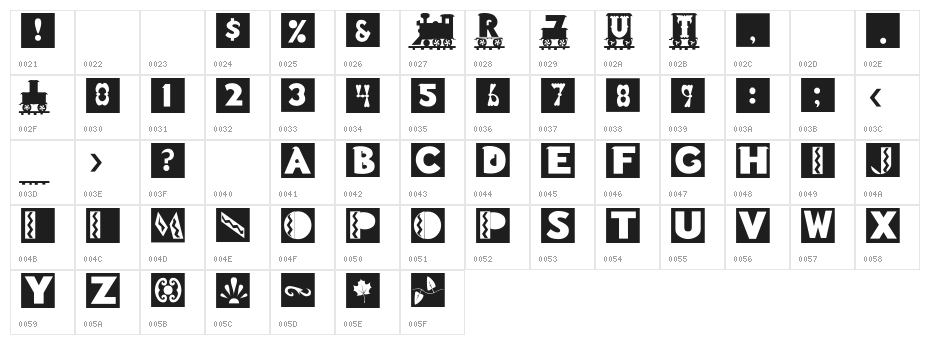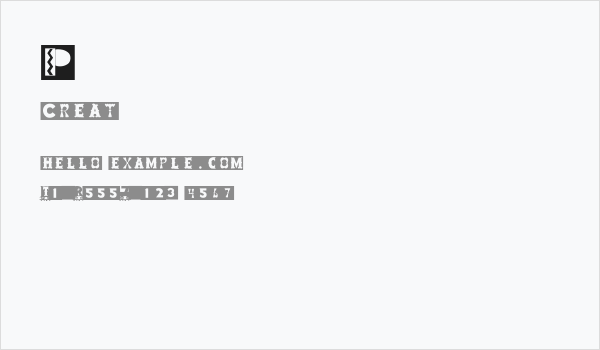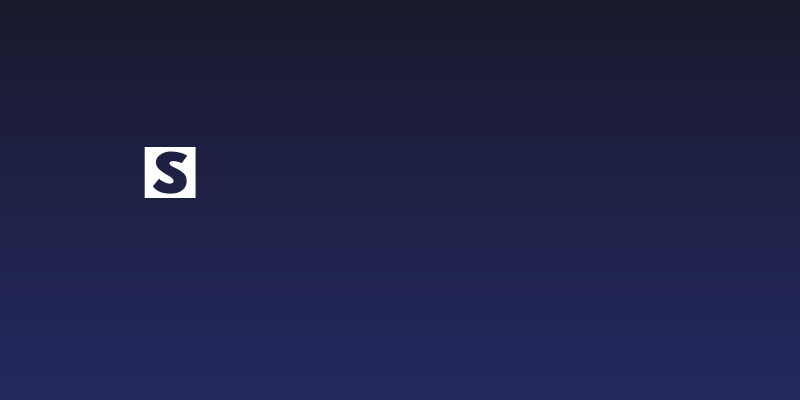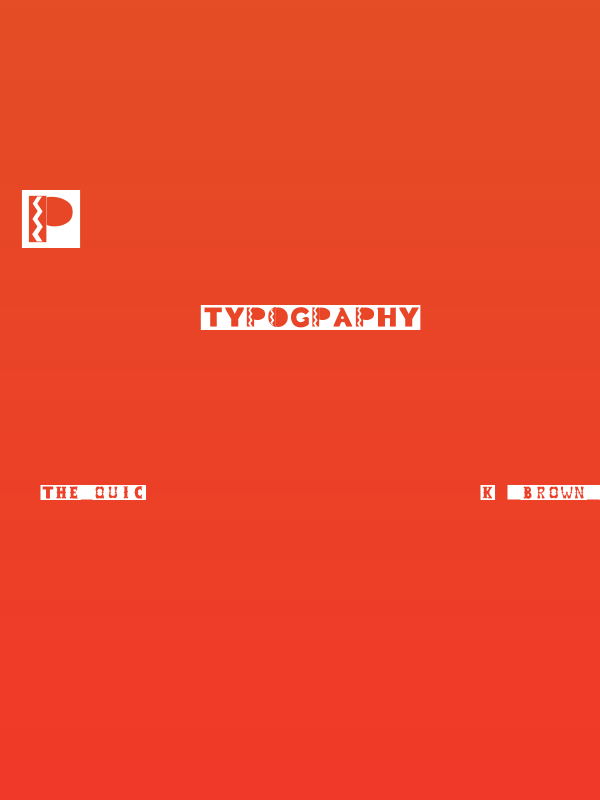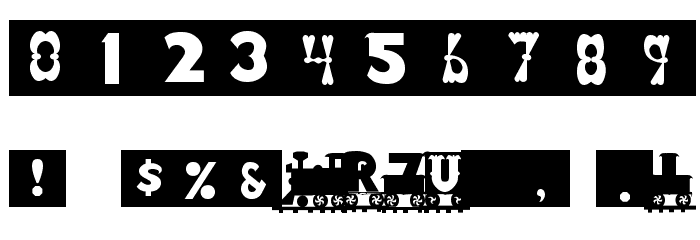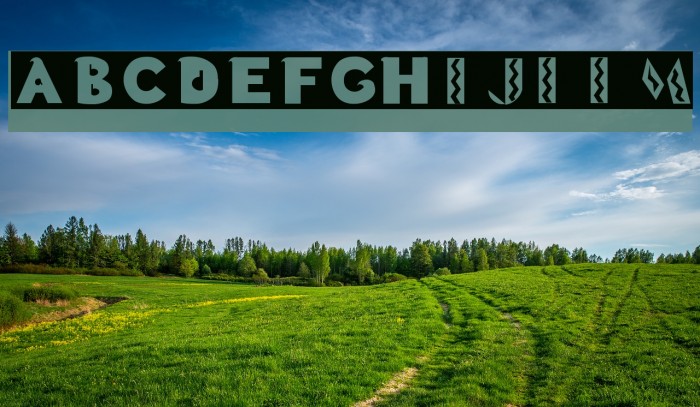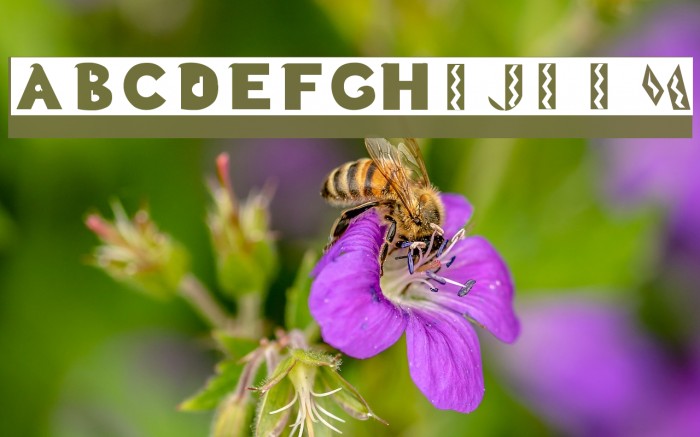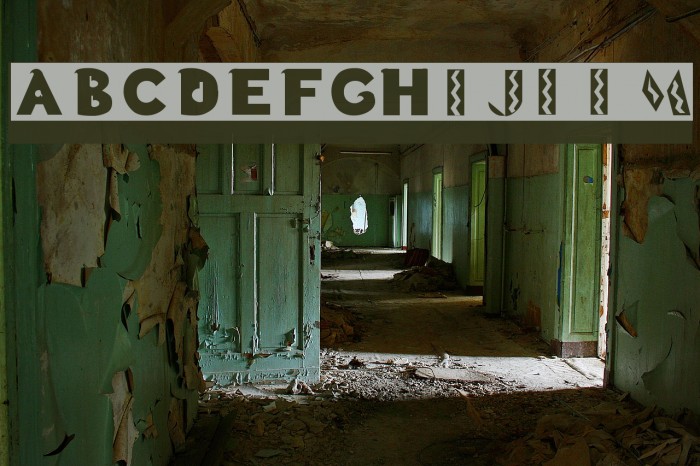
RSToyBlock Font
RSToyBlock Description
This font features a playful and bold design, reminiscent of children's building blocks. Each character is enclosed within a square, giving it a structured and geometric appearance. The letters are uppercase with a consistent height, and the style incorporates a mix of sharp angles and rounded edges, adding a whimsical touch. The numbers and special characters follow the same blocky theme, ensuring uniformity across the font. The overall look is both fun and functional, making it suitable for projects aimed at a younger audience or those seeking a nostalgic, playful vibe.
| Overall Style | Playful, Geometric |
| Proposed Projects | Ideal for children's books, toy packaging, educational materials, and playful branding. |